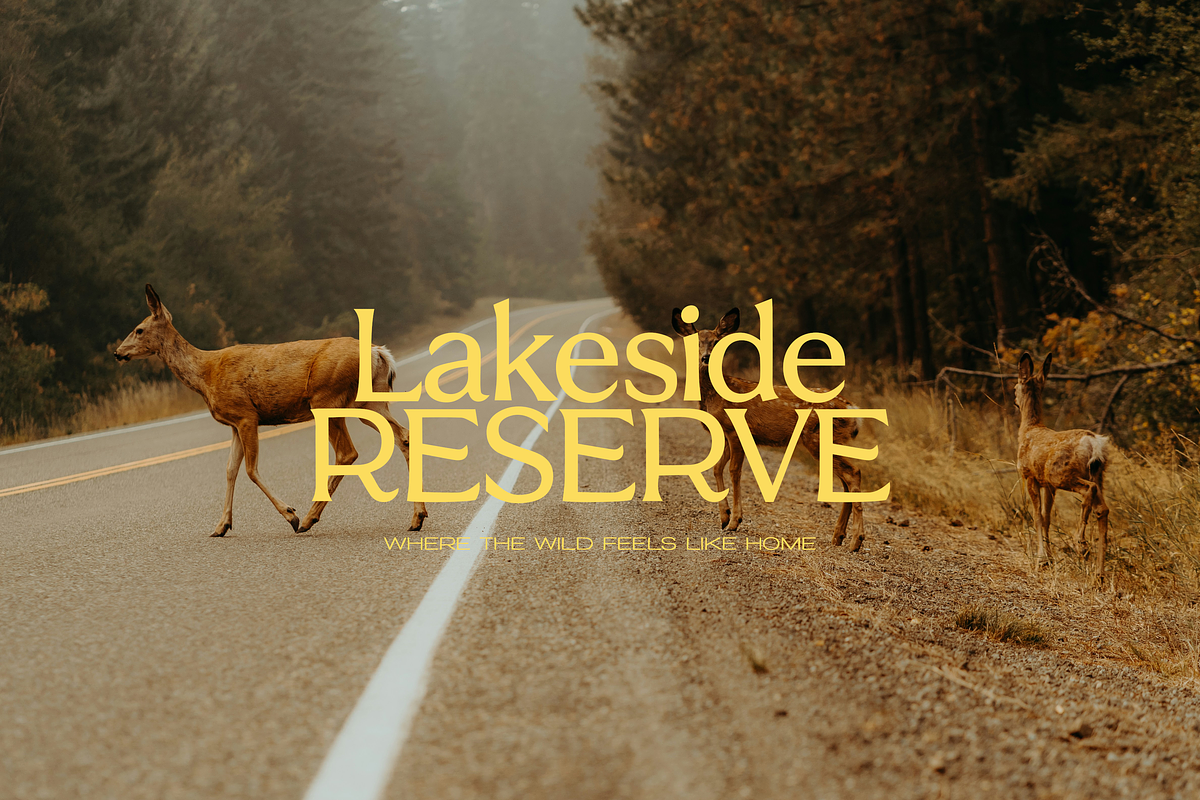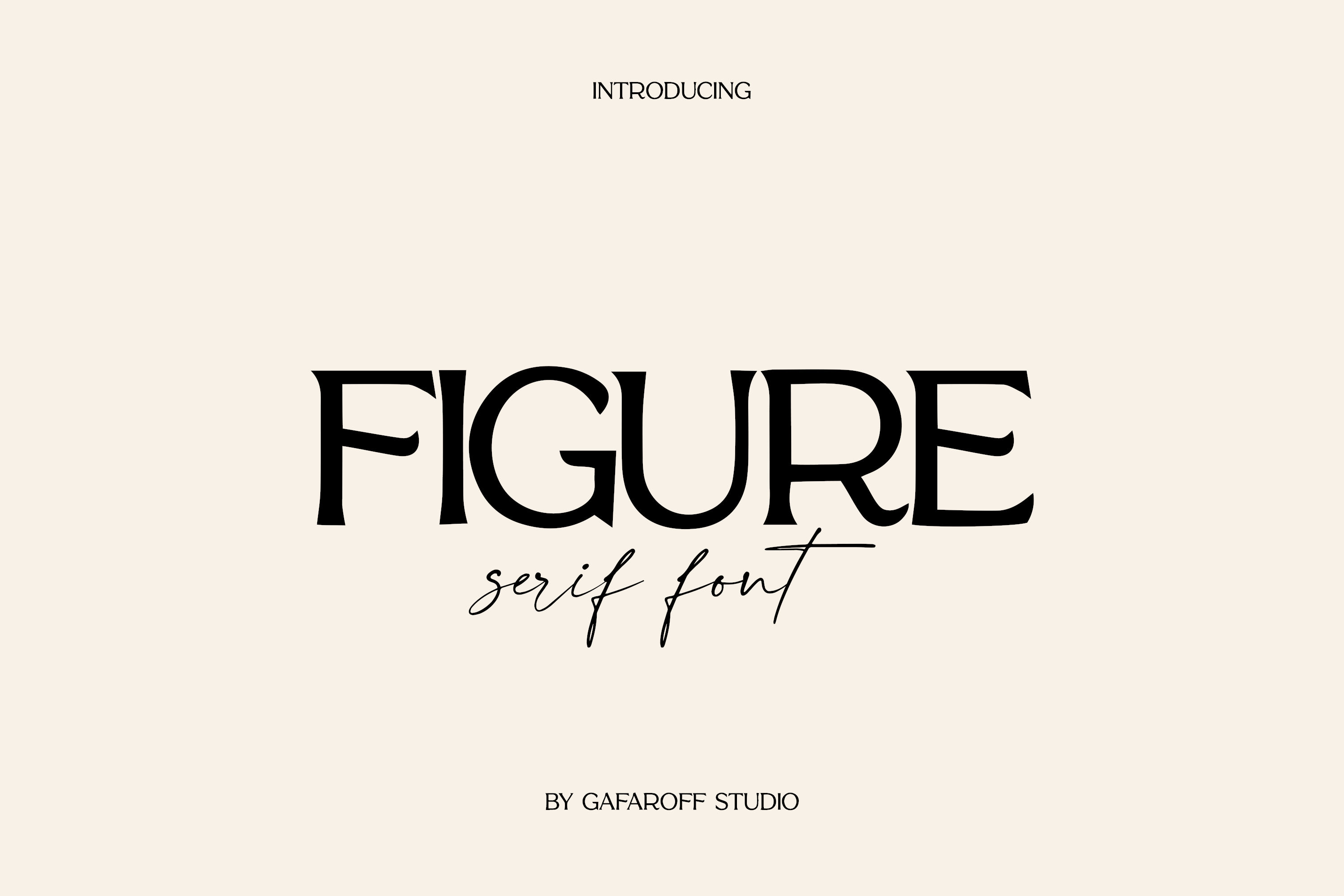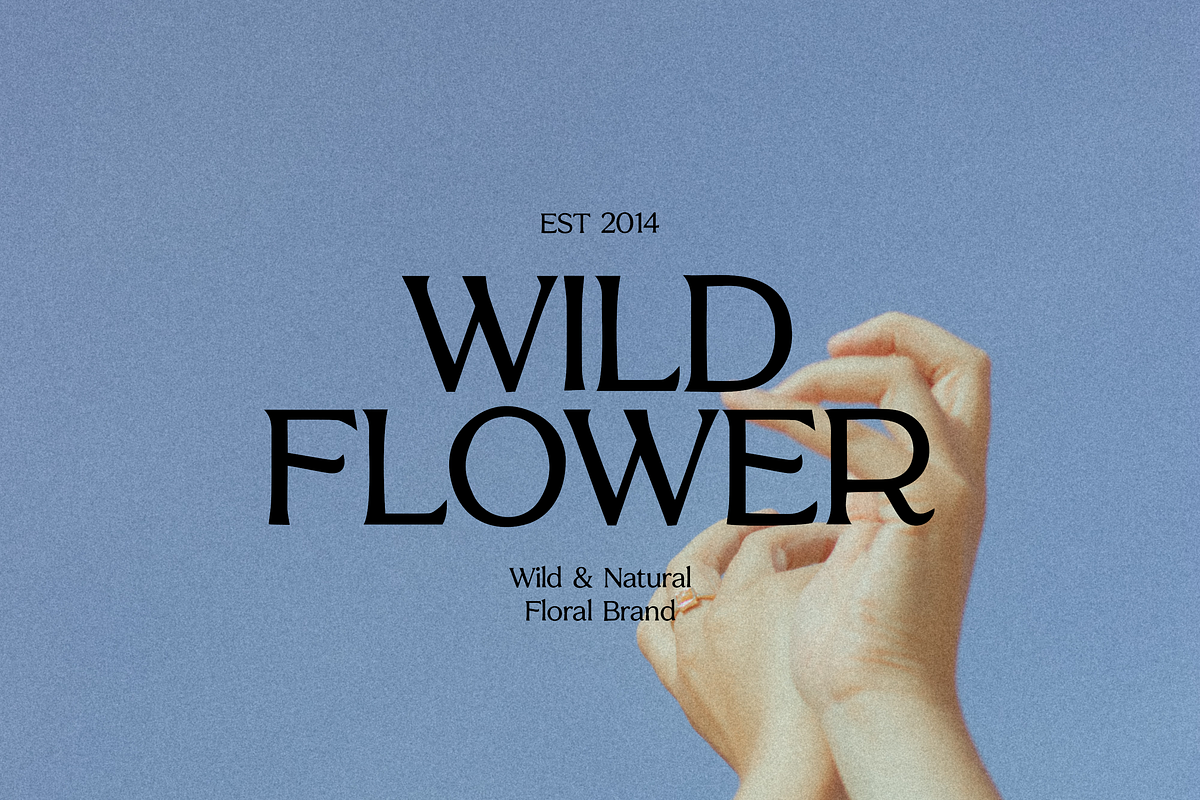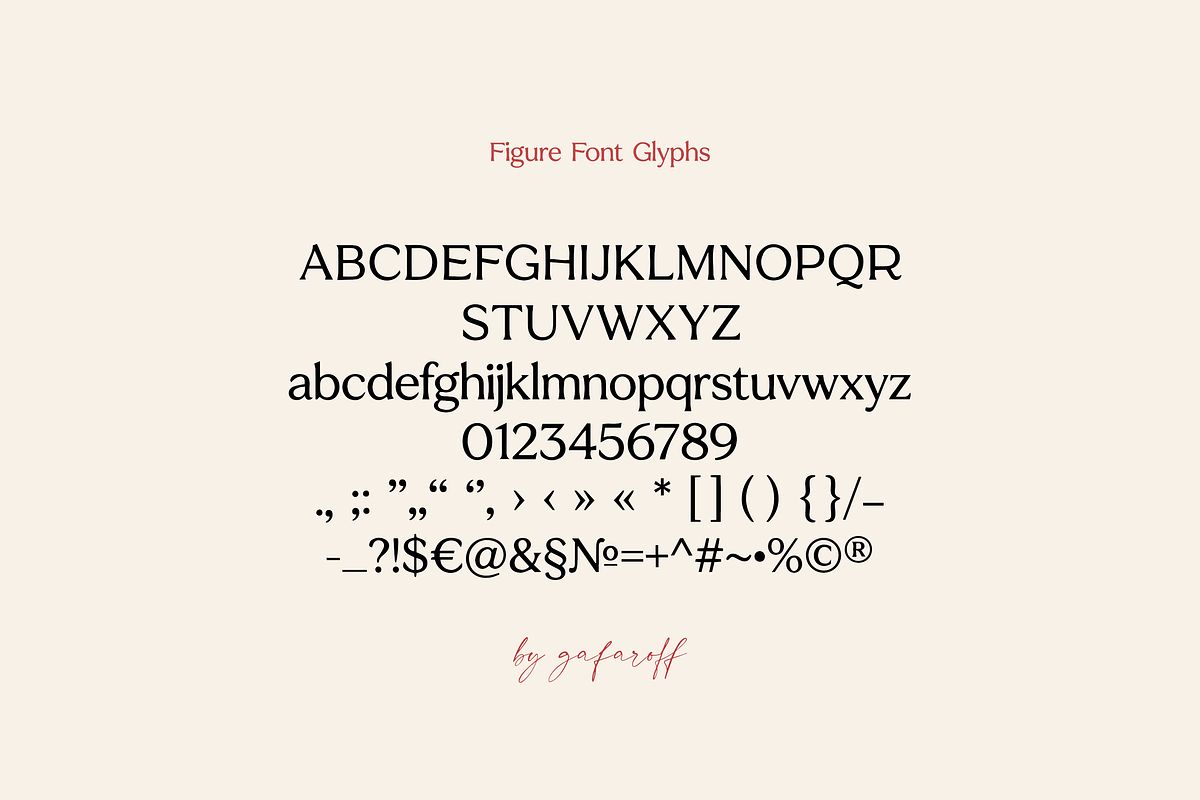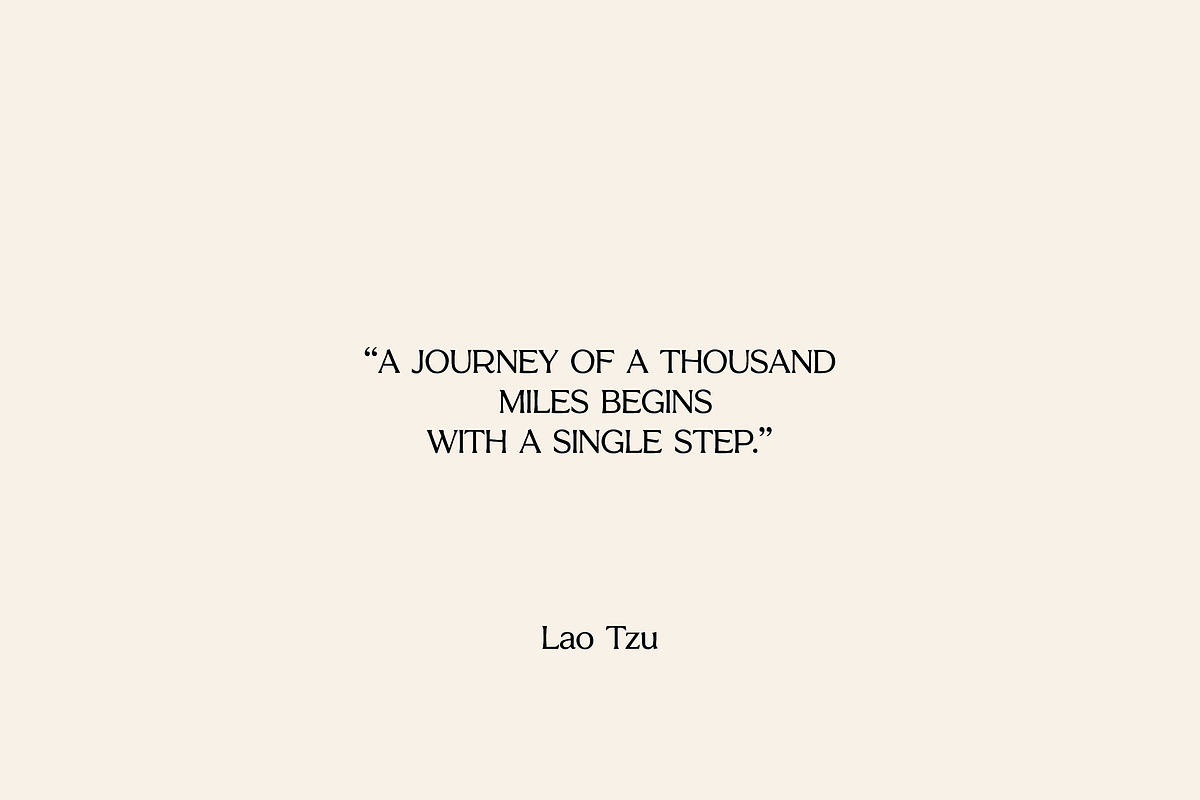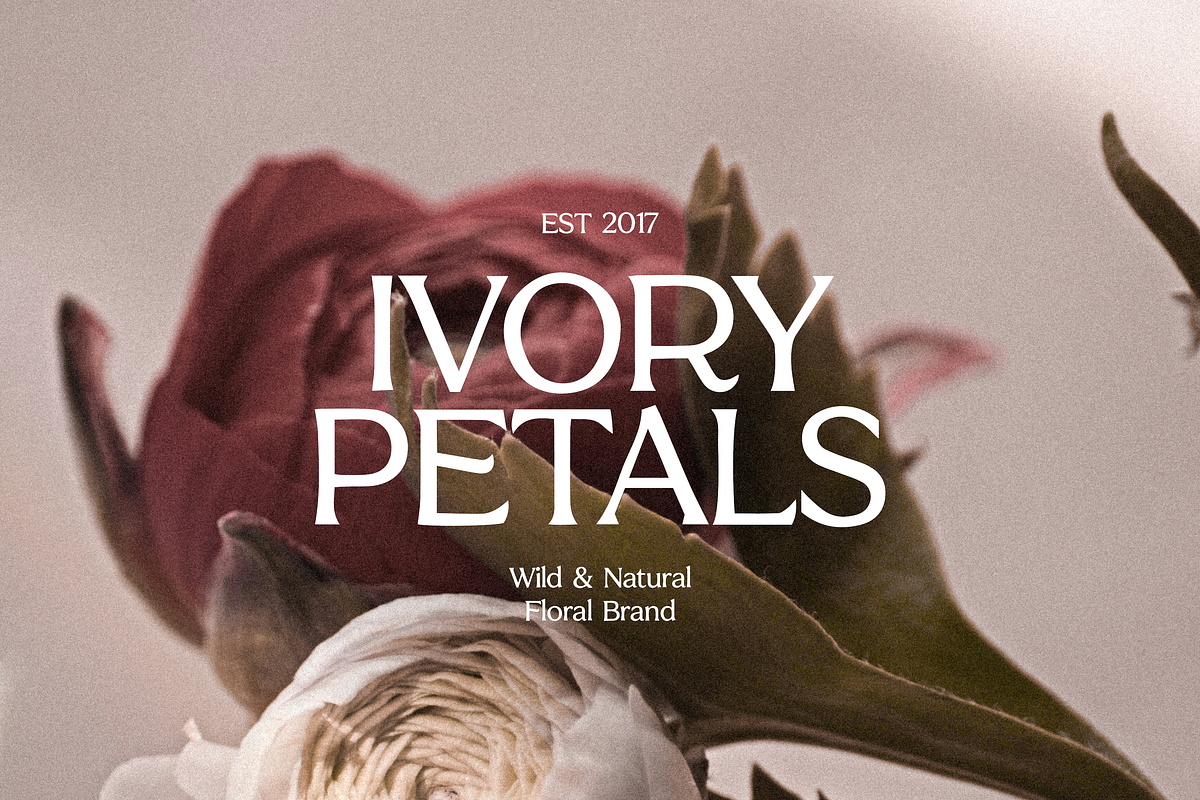
Figure Bold Serif Font
FIGURE is a bold, sculptural serif with a modern editorial feel. It mixes confident, high-contrast strokes with soft curves and stylish, slightly dramatic shapes. Perfect when you want your typography to look premium, artistic, and instantly recognizable.
Designed as a statement display font, FIGURE shines in logo design, fashion branding, beauty & skincare packaging, magazine headlines, posters, menus, and luxury hospitality identities. It brings that “quiet luxury” mood, but with enough character to feel custom.